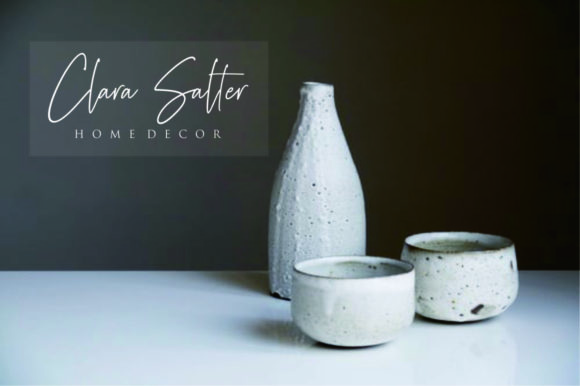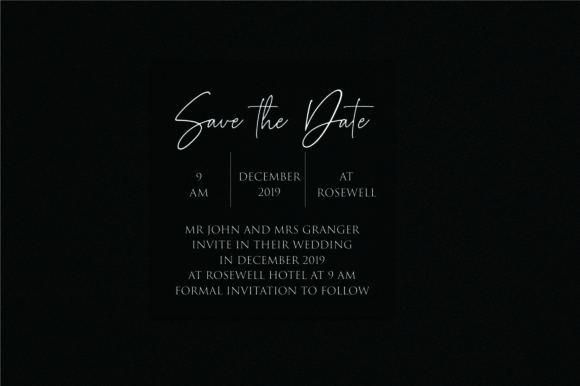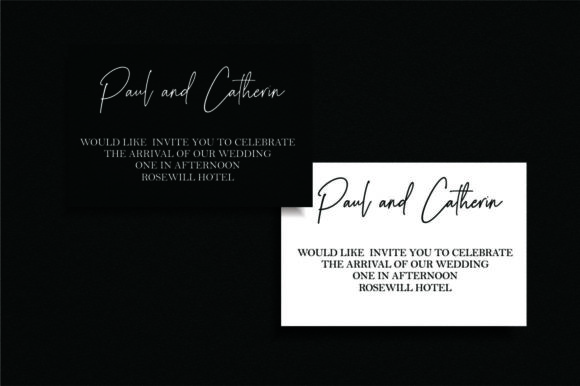
Introduction to Ink Scale Font
Ink Scale is an equally modern and authentic script that will easily elevate your next design project.
Ink Scale is an equally modern and authentic script that will easily elevate your next design project!
Key Features of Ink Scale Font
Why Choose Ink Scale Font?
Ink Scale Font offers exceptional quality and versatility, making it a valuable addition to your design toolkit. Whether you’re creating for personal projects or commercial use, Ink Scale Font delivers professional results.